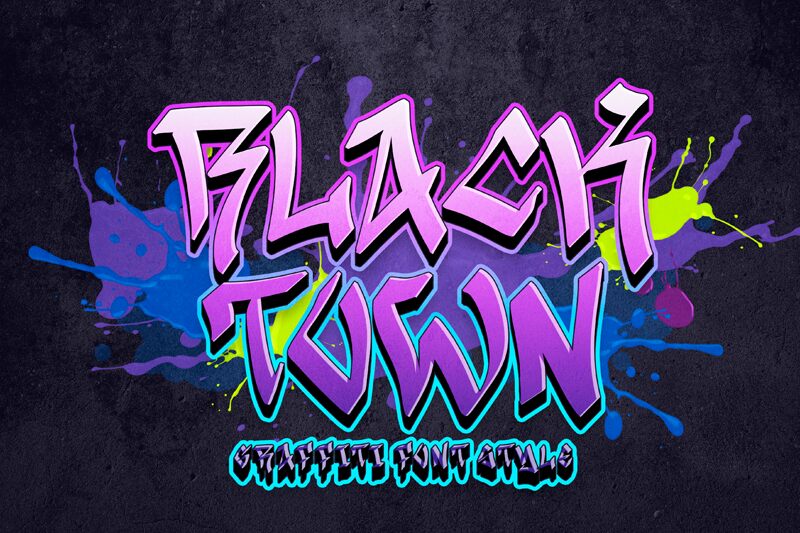
Black Town font by Yoga Letter is a graffiti-style free font inspired by the capital letters that graffiti artists incorporate into their tags. The street lettering style drawn with rough edges is one of the most popular styles of this artistic form that emerged in the 1960s. It conveys a non-conformist, rebellious nature, and has also come to universally represent contemporary street culture.